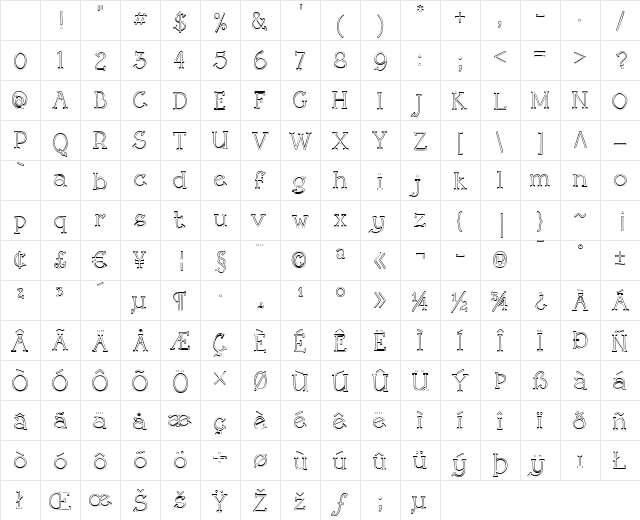
Rough LT embraces imperfection - its rough, textured character adds raw authenticity to designs that want to feel lived-in and unconventional.
Pro Tip: Use Rough LT at larger sizes where the texture and irregularity of each letterform can be clearly seen - it loses its character at small sizes.